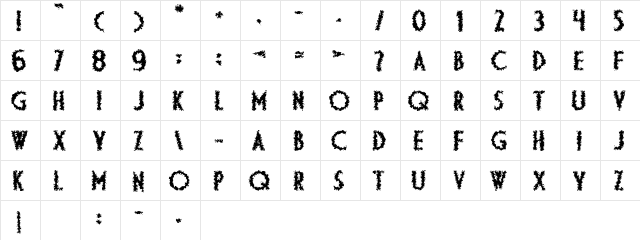
DS DiplomaArtC Bold
Design Context for DS DiplomaArtC Typeface
DS DiplomaArtC is a composed and adaptable typeface that performs quietly and consistently across a wide range of design contexts. Its bold stroke weight gives it real presence on the page.
Pro Tip: Pair DS DiplomaArtC with a font of contrasting weight or personality to build a more expressive typographic hierarchy.